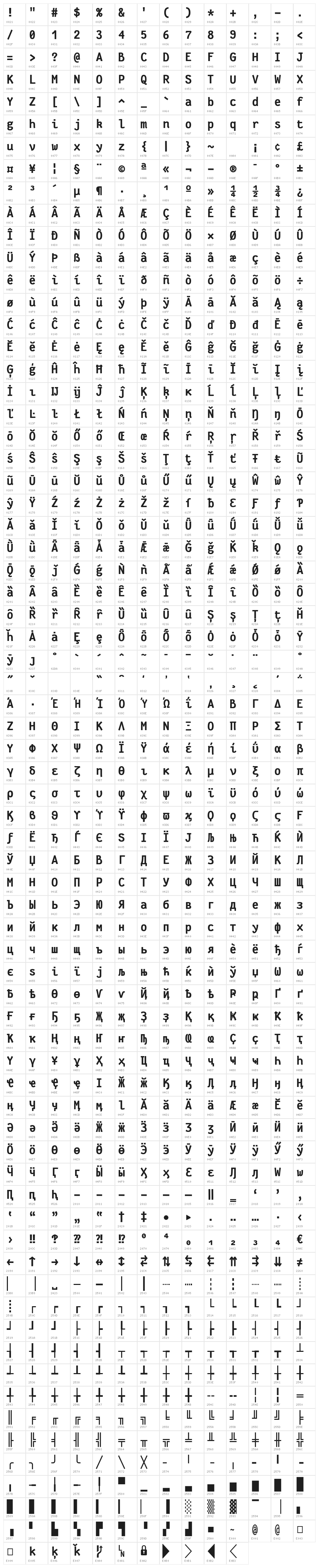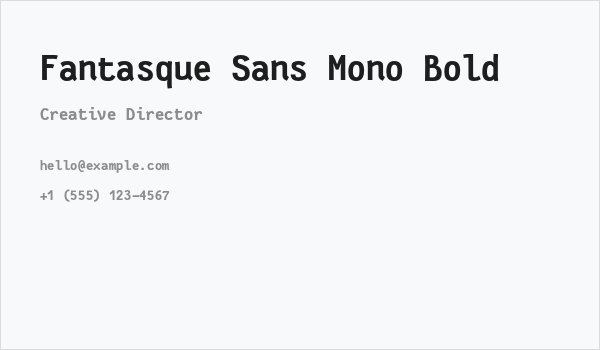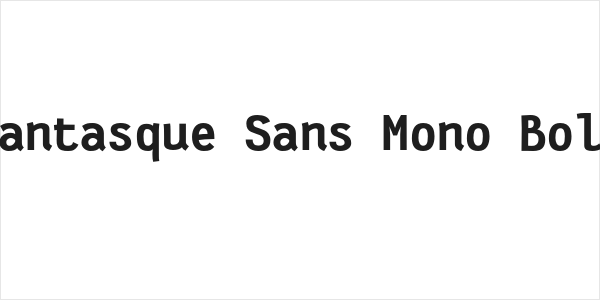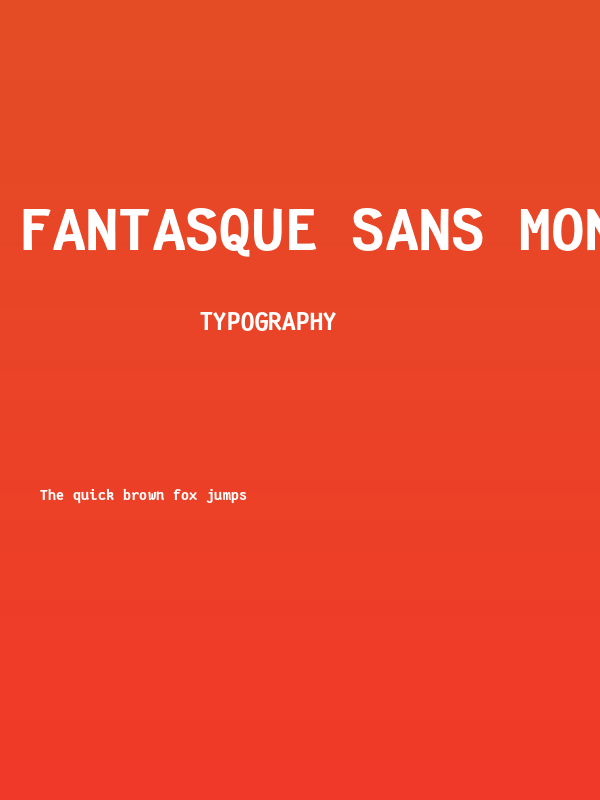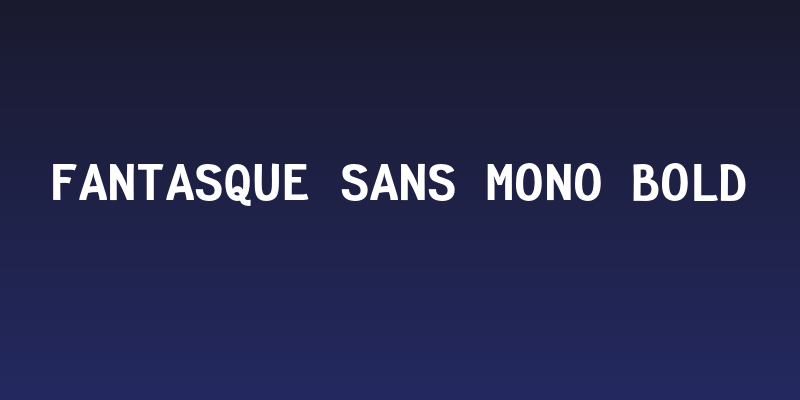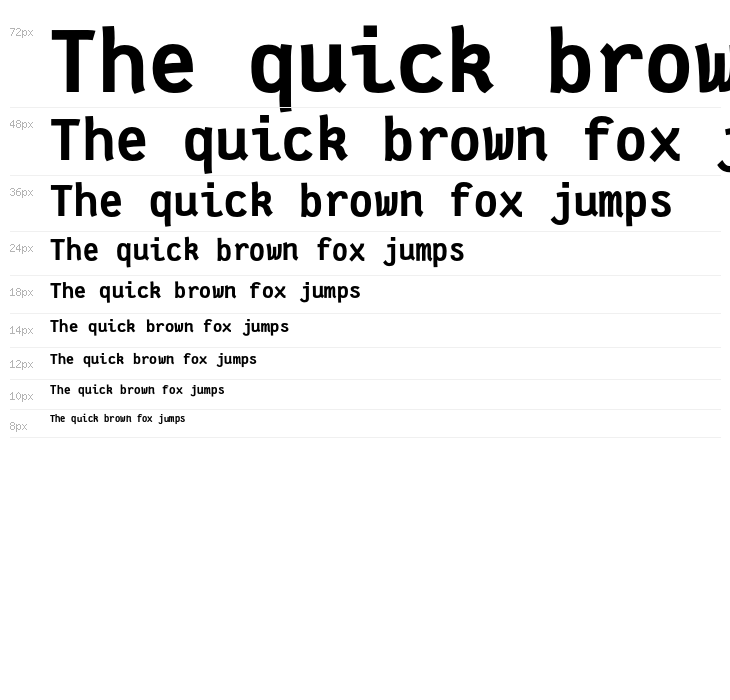
Fantasque Sans Mono Bold Font
Fantasque Sans Mono Bold Description
This typeface presents a playful and modern aesthetic with its monospaced design, ensuring each character occupies the same width. The bold weight enhances its presence, making it suitable for attention-grabbing displays. Its rounded edges and slightly quirky character shapes add a touch of friendliness and approachability. The font maintains a consistent stroke width, contributing to a clean and uniform appearance. Its distinct style is ideal for coding environments, where readability and character distinction are crucial. The font's unique personality makes it versatile for creative projects that require a blend of modernity and charm.
| Use Case | Headlines, Coding, Logos |
| Proposed Projects | Ideal for coding environments, creative design projects, and modern branding. |